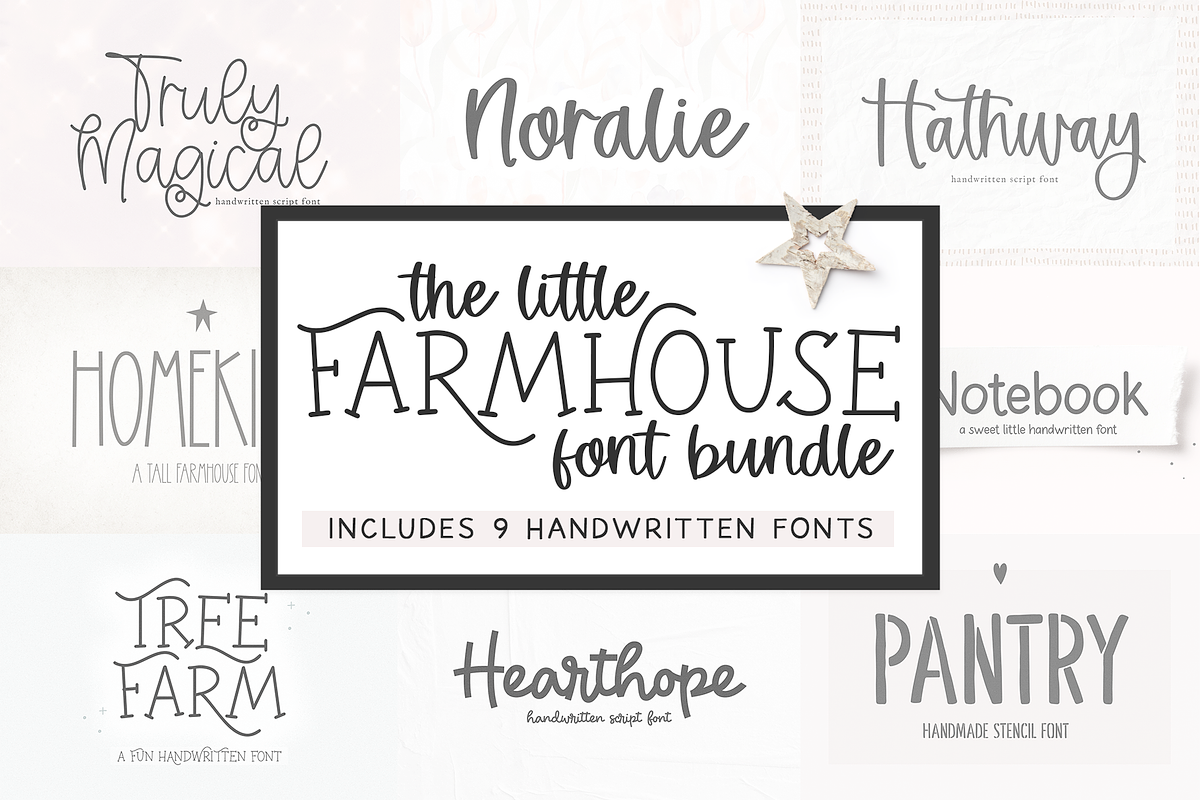
The Little Farmhouse Font BUNDLE Free Download is a charming and rustic collection of hand-lettered fonts inspired by cozy country living and farmhouse aesthetics. This bundle typically includes a variety of script, serif, sans serif, and decorative fonts—perfect for home décor signage, DIY crafts, farmhouse-style branding, invitations, and social media content with a warm, handmade feel.
Each typeface in The Little Farmhouse Font BUNDLE Free Download is crafted to evoke simplicity, comfort, and charm, making them ideal for both print and digital designs. With multiple font pairings in one package, you’ll have everything you need to create beautifully cohesive and heartfelt projects.